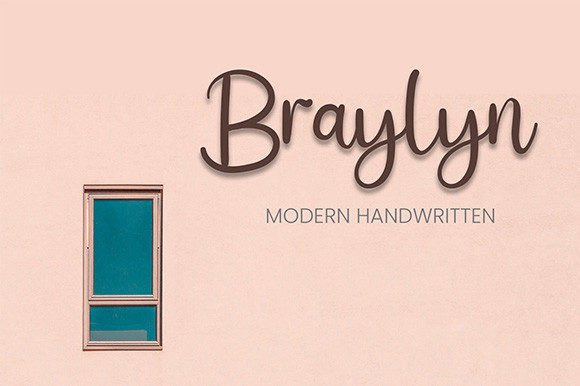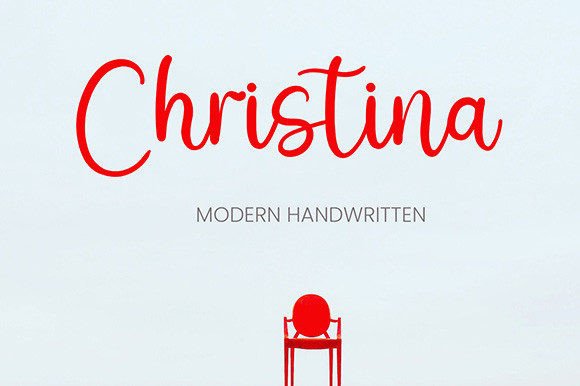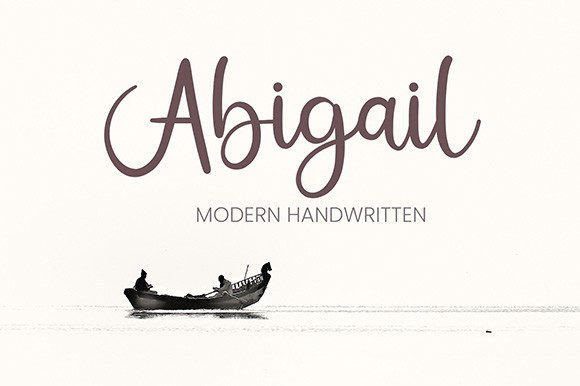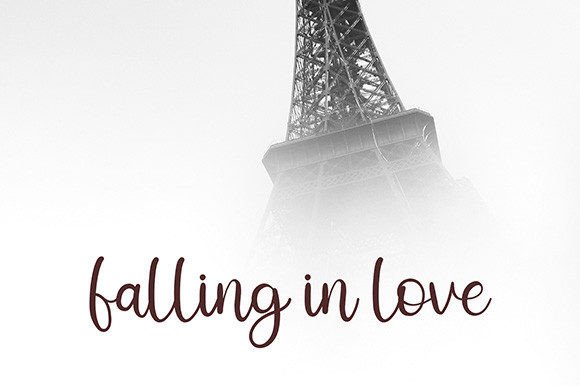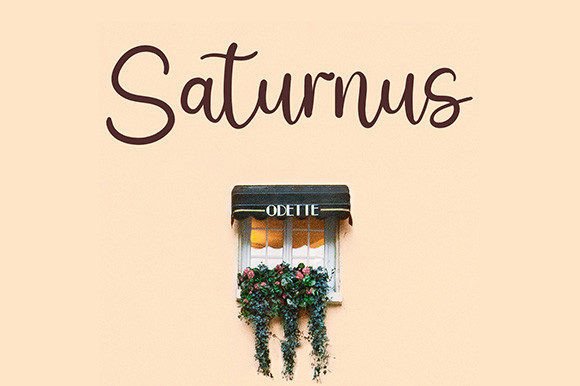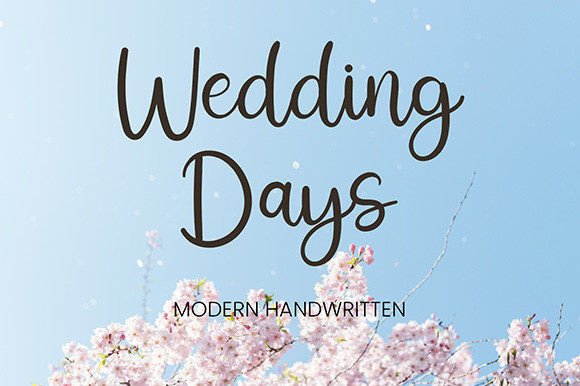
Discover the Charm of Dabella Font: Elevate Your Designs with this Lovely Handwritten Script
Are you tired of using the same old fonts in your designs? Look no further! Dabella Font is here to add a touch of elegance and playfulness to your creations. This beautiful handwritten script font is perfect for designers and crafters who want to add a personal touch to their work. In this article, we’ll dive into the world of Dabella Font and explore its features, benefits, and uses.
What is Dabella Font?
Dabella Font is a lovely and cute handwritten script font that is sure to capture your heart. Its unique and charming design makes it an incredible asset to your font library, regardless of the topic or theme you’re working on. Whether you’re creating a wedding invitation, a branding project, or a social media post, Dabella Font is the perfect choice to add a touch of warmth and personality.
Features of Dabella Font
So, what makes Dabella Font so special? Here are some of its key features:
• Handwritten script design: Dabella Font has a beautiful, handwritten script design that gives it a personal and unique touch.
• Cute and playful: This font is perfect for designers and crafters who want to add a touch of playfulness to their work.
• Elegant and sophisticated: Despite its playful nature, Dabella Font is also elegant and sophisticated, making it suitable for a wide range of projects.
• High-quality: Dabella Font is a high-quality font that is designed to work perfectly in a variety of applications.
Benefits of Using Dabella Font
So, why should you choose Dabella Font for your next project? Here are some of the benefits of using this lovely font:
• Adds a personal touch: Dabella Font adds a personal touch to your designs, making them stand out from the crowd.
• Versatile: This font is versatile and can be used in a wide range of projects, from wedding invitations to branding and social media posts.
• Easy to read: Dabella Font is easy to read, making it perfect for body text and headlines.
• Unique and creative: With Dabella Font, you can create unique and creative designs that reflect your personality and style.
Uses of Dabella Font
So, what can you use Dabella Font for? The possibilities are endless! Here are some ideas to get you started:
• Wedding invitations: Dabella Font is perfect for wedding invitations, adding a touch of romance and elegance to your designs.
• Branding and logos: This font can be used to create unique and memorable branding and logos that reflect your company’s personality.
• Social media posts: Dabella Font is great for social media posts, adding a touch of personality and whimsy to your updates.
• Stationery and greeting cards: This font is perfect for creating beautiful stationery and greeting cards that are sure to impress.
Font Name Dabella Font
Author chatype studio
In conclusion, Dabella Font is a lovely and cute handwritten script font that is sure to elevate your designs. With its unique and charming design, this font is perfect for designers and crafters who want to add a personal touch to their work. Whether you’re creating a wedding invitation, a branding project, or a social media post, Dabella Font is the perfect choice. So why not give it a try and see the difference it can make in your designs?
With Dabella Font, you can create beautiful and unique designs that reflect your personality and style. Its versatility, elegance, and playfulness make it an incredible asset to your font library. So, don’t wait any longer to add Dabella Font to your collection and take your designs to the next level!